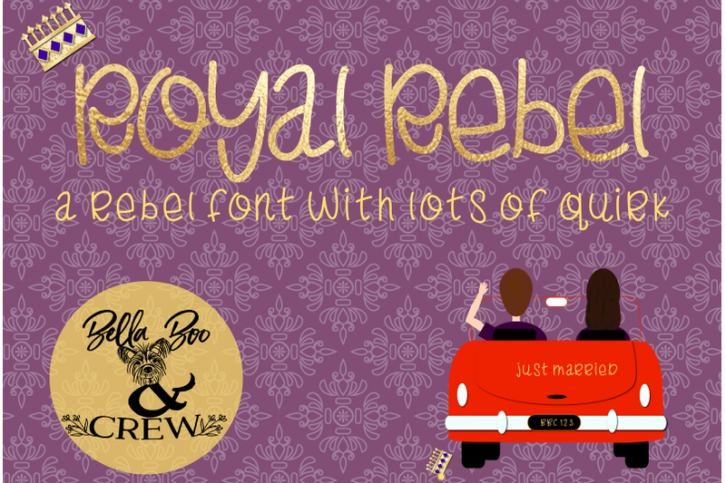
Introducing a rebellious font that is full of quirks. Multilingual language is supported. Pick a favorite verse or quote and add this font to create an unique look. Useful for any project that you want to add a touch of flair yet still posesses a handwritten feel. Enjoy it as much as I enjoy making it.